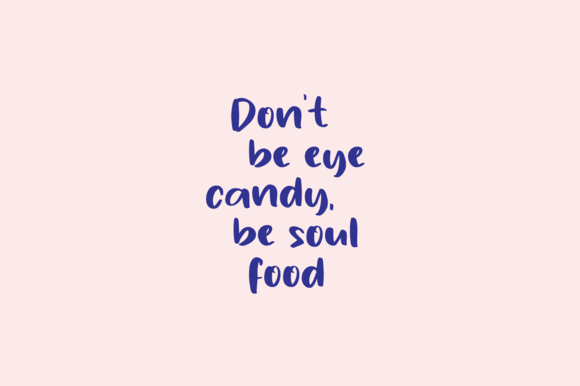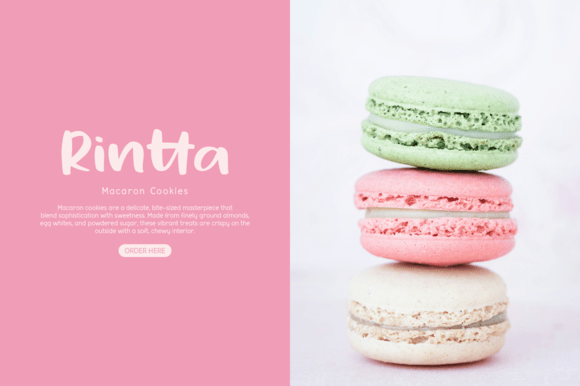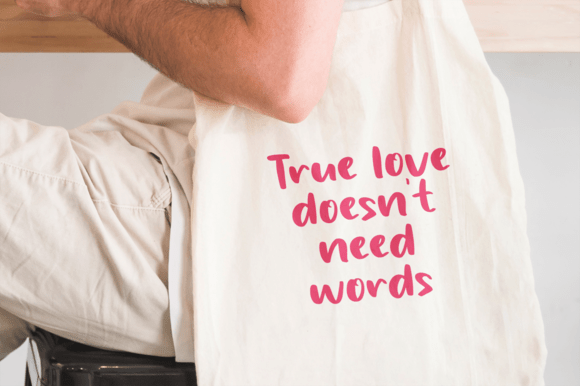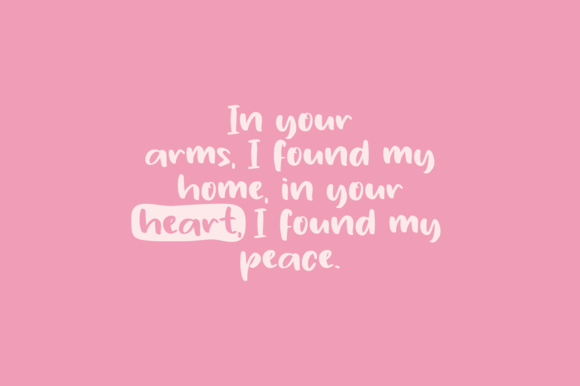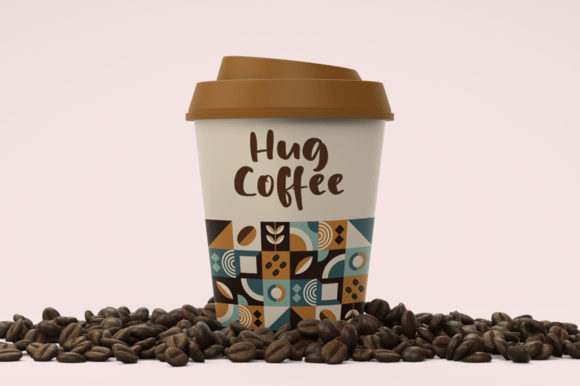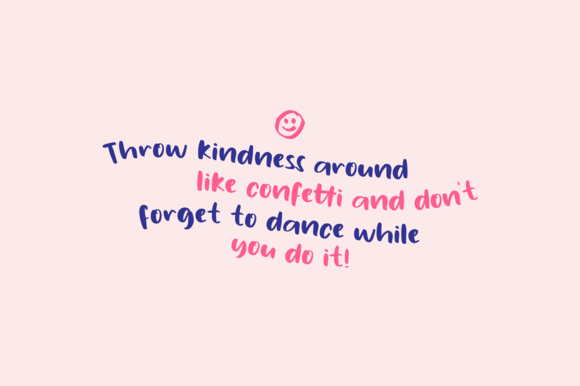
The Joy of Handwritten Typography: Introducing Bubble Font
Have you ever found yourself scribbling down a quick note or a to-do list, only to wish you could replicate that same playful, handwritten feel in your design work? We’ve all been there! For designers looking to add a touch of whimsy and personality to their projects, there’s a font that’s about to become your new best friend: the Bubble Font.
Designed to evoke the charm of handwritten notes and marker-drawn doodles, the Bubble Font is a delightful, rounded, and soft typographic solution that’s perfect for creating a warm and inviting atmosphere. With its adorable letterforms and friendly demeanor, this font is sure to bring a smile to the faces of your audience and leave a lasting impression.
Bubble Font Key Features
- Unique Characteristics: The Bubble Font features a distinctive, playful design with rounded shapes and soft edges, making it perfect for creating a fun and whimsical atmosphere in digital and print projects.
- Legibility and Readability: Despite its playful appearance, the Bubble Font is designed to be highly legible and readable, even at small sizes, making it suitable for a wide range of applications, including body text and headings.
- Language Support: The Bubble Font supports a wide range of languages, including Latin, Cyrillic, Greek, and more, making it a versatile choice for global projects.
- Style Options: The Bubble Font is available in 4 different styles: Regular, Italic, Bold, and Bold Italic, providing users with a range of options to suit their design needs.
Bubble Font Review
At first glance, I was drawn to the whimsical and playful vibe of Bubble Font. It’s the perfect choice for designs that need a touch of fun and approachability. ✨ The rounded shapes and soft edges create a sense of friendliness, making it ideal for children’s products, entertainment, or lifestyle brands.
Here are some of the key strengths of Bubble Font:
- ✨ Unique and recognizable design that stands out from the crowd
- ✨ Suitable for digital and print applications
- ✨ Can be customized for various brand styles
However, I did encounter some limitations that may impact its effectiveness:
- ⚠️ Limited versatility in formal or professional settings
- ⚠️ May not be suitable for complex or dense text
- ⚠️ Can be challenging to read in smaller font sizes
Overall, I think Bubble Font is a great choice for designers looking to add a playful touch to their designs. While it may not be suitable for every project, its unique design and versatility make it a valuable addition to any designer’s toolkit.
Bubble font is perfect for creating playful and whimsical designs. It’s commonly used in children’s book illustrations, party invitations, and social media graphics. To get the most out of bubble font, experiment with different font sizes, colors, and effects to create a unique look. You can also use bubble font in combination with other design elements, such as illustrations or graphics, to add visual interest to your design.
Q: Can I customize Bubble Font to fit my specific design needs?
While Bubble Font is available in various weights and styles, it is not designed to be heavily customized. However, you can experiment with font combinations, color schemes, and layout adjustments to create a unique look that suits your design goals. Keep in mind that excessive customization may compromise the font’s intended appearance and legibility.